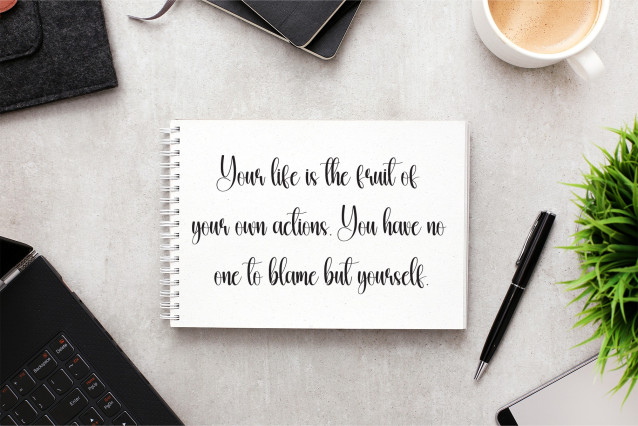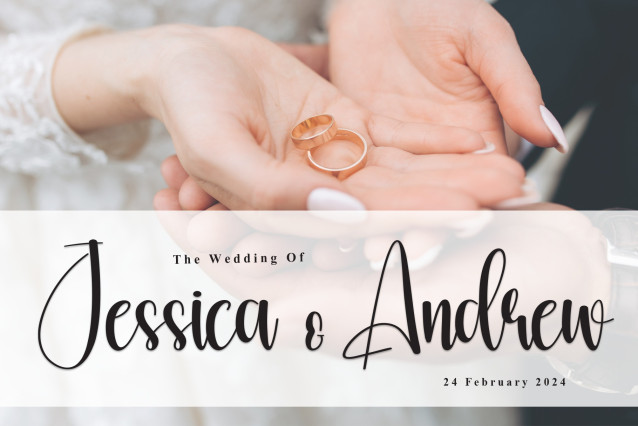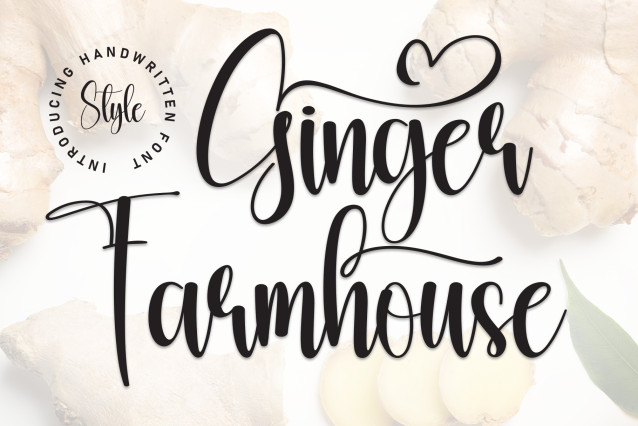
Ginger Farmhouse Font
Ginger Farmhouse Font – special creative products for you, our products will give you an extraordinary experience. The latest style letters are perfect for wall displays, wedding invitations, social media post logos, advertisements, product packaging, product designs, labels, photography, watermarks, invitations, stationery, and any project that requires taste handwriting.